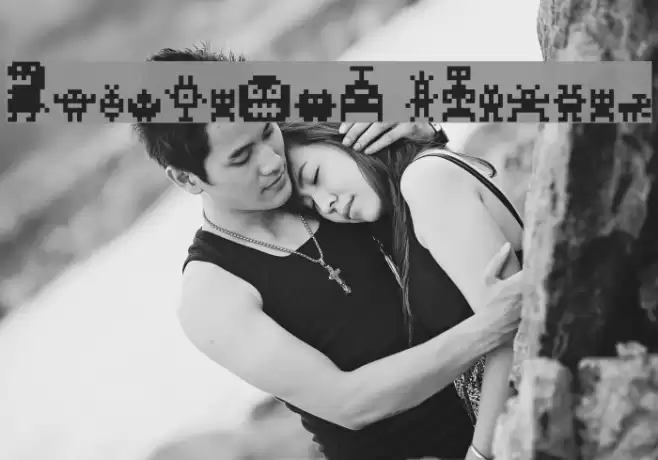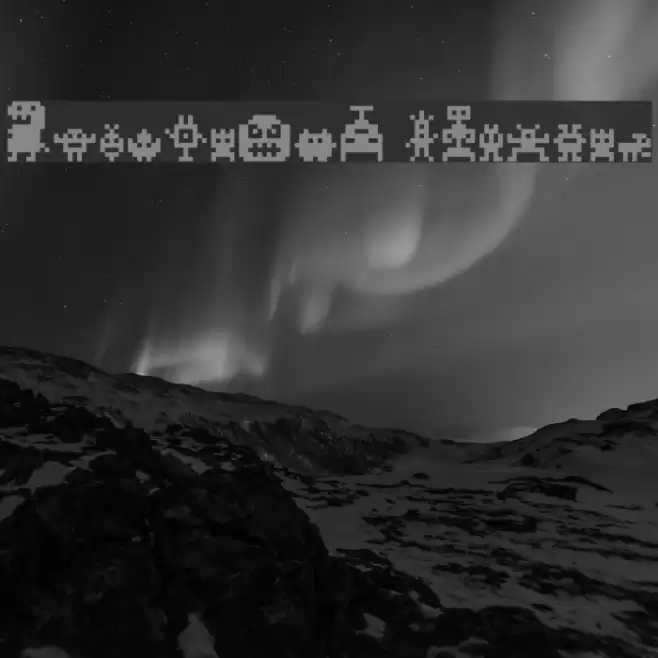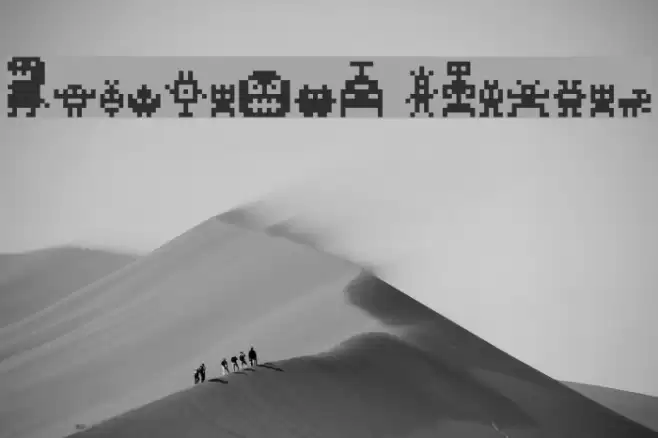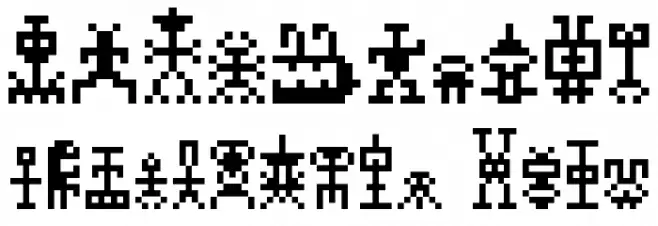
MonstaPix Regular Font
MonstaPix Regular Description
This font is a playful and creative display typeface featuring a series of pixelated monster-like characters. Each character is uniquely designed with a retro, 8-bit aesthetic reminiscent of classic video games. The characters are bold and blocky, with a consistent pixelated style that gives them a charming, nostalgic feel. The font does not include traditional alphanumeric characters but instead offers a variety of imaginative monster shapes, making it ideal for projects that require a fun and quirky touch. The uniformity in pixel size across all characters ensures a cohesive look, while the diversity in monster designs adds an element of surprise and creativity.
A pixelated, monster-themed display font with a retro, 8-bit style from Dingbats fonts.
- Proposed Projects: Ideal for video game designs, children's book illustrations, themed party invitations, or any creative project needing a playful touch.
- Overall Style: Retro, Playful
- Use Case: Logos, Posters, Themed Graphics